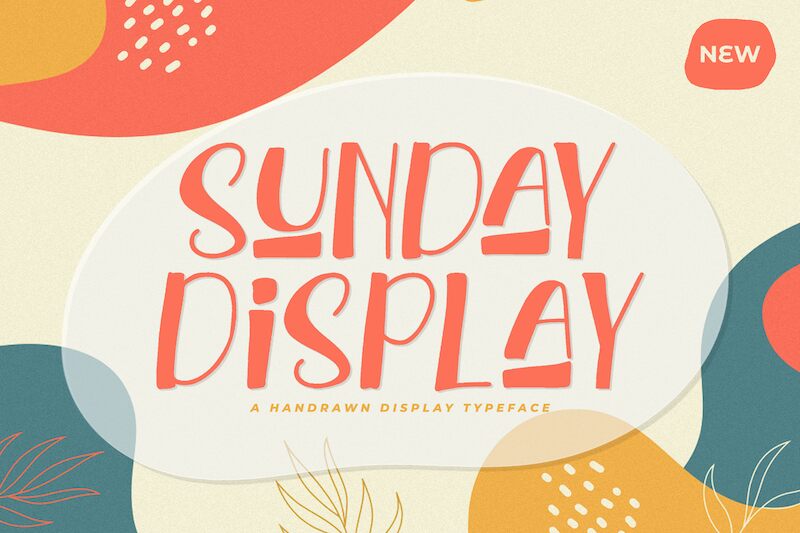
Sunday Display
Sunday Display is a fun and creative display font designed by Virgiawan Listanto. With its unique hand drawn cartoon style, Sunday Display is perfect for projects ranging from children's books to bold logo designs.